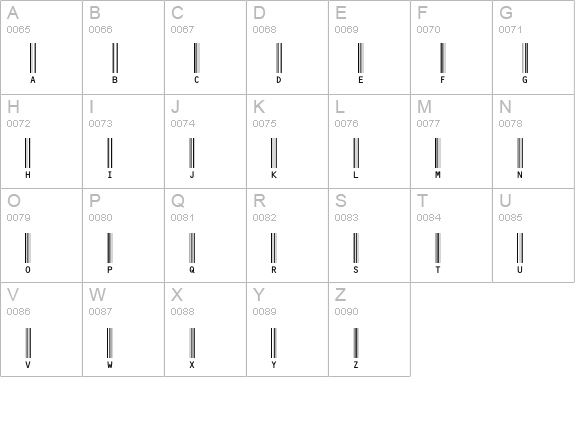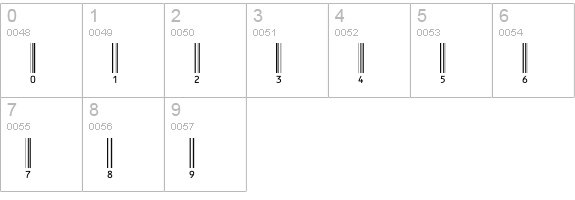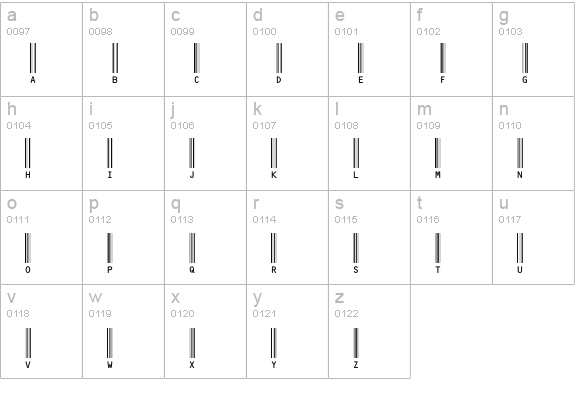
C39HrP48DhTt Font Details
The C39HrP48DhTt font is a stunning and sophisticated typeface that exudes elegance and modernity. With its unique combination of sharp lines and intricate details, this font is perfect for adding a touch of sophistication to any design project. Its sleek and stylish appearance makes it ideal for a wide range of applications, from branding and marketing materials to web design and more. What sets the C39HrP48DhTt font apart is its versatility and adaptability, making it suitable for a variety of design styles and purposes. Whether you're looking to create a sleek and professional look or a bold and eye-catching design, this font has you covered. Best of all, the C39HrP48DhTt font is completely free to download at FontsMarket.com. Simply visit the website to access this incredible font and start using it in your projects today. Don't miss out on this opportunity to enhance your designs with the beauty and sophistication of the C39HrP48DhTt font.